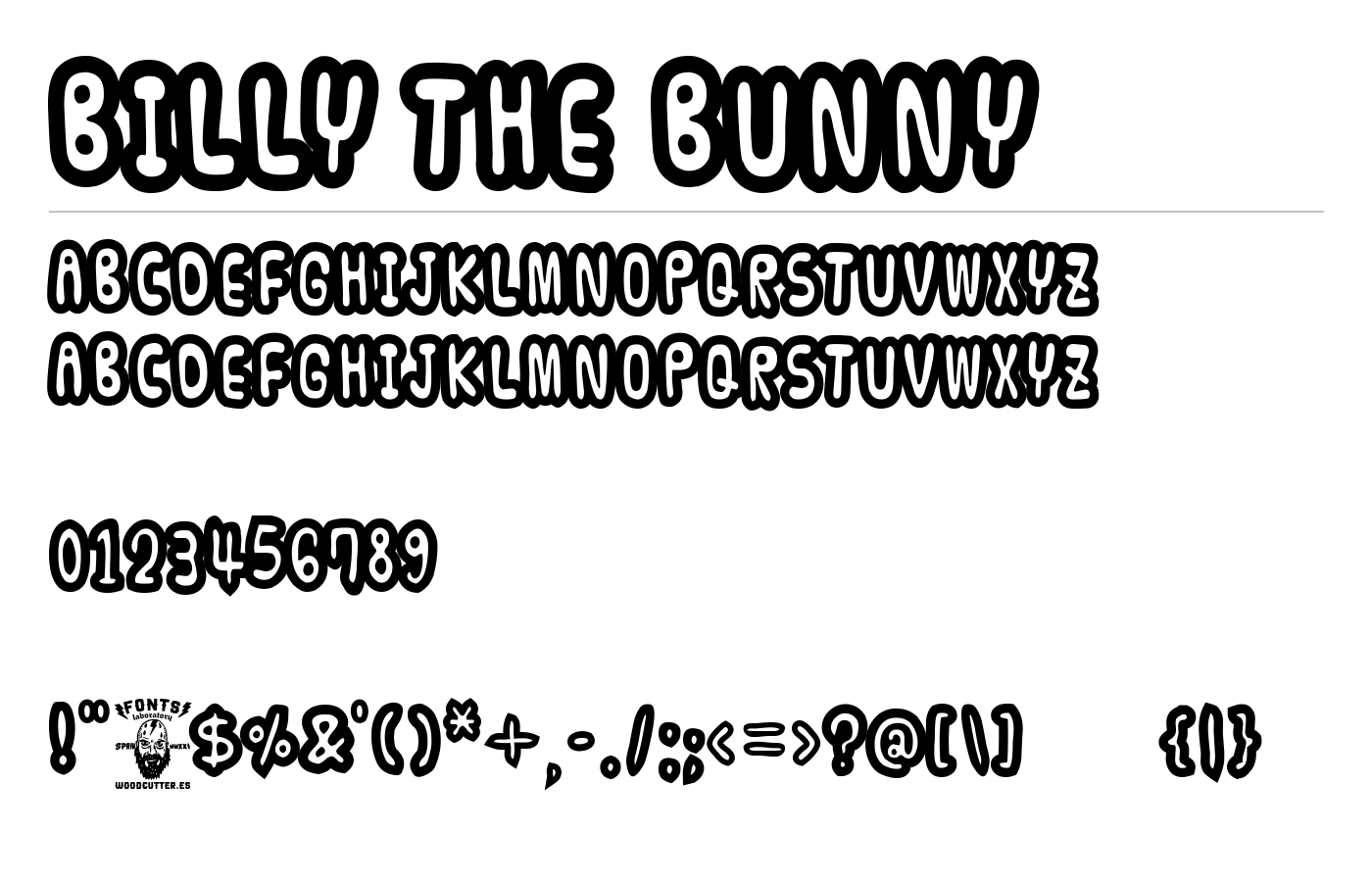
Billy The Bunny is a playful, bold, and rounded sans serif font with a lively cartoon-like personality. Its thick, bubbly letterforms create a fun and approachable vibe, making it perfect for children’s content, casual branding, or lighthearted headlines that need a friendly and eye-catching style. This font works best in logos, posters, and kid-focused designs where a whimsical, informal tone is desired.
Billy The Bunny Font
About Billy The Bunny Font